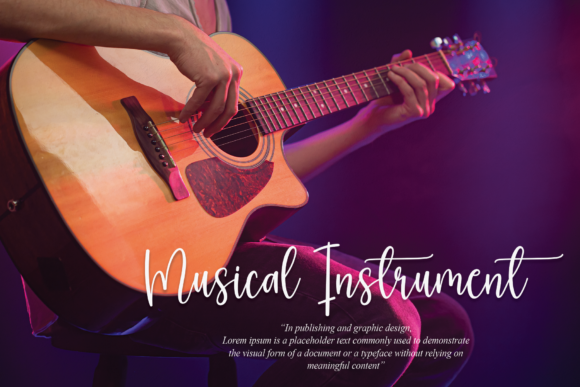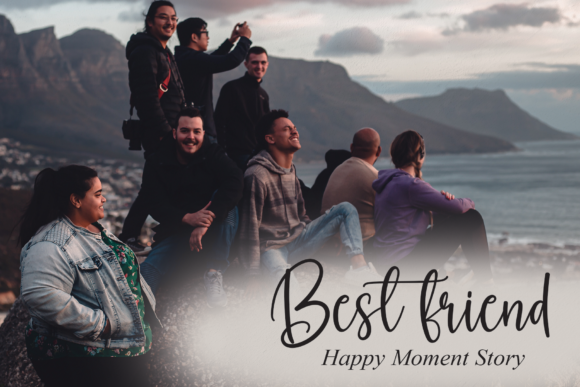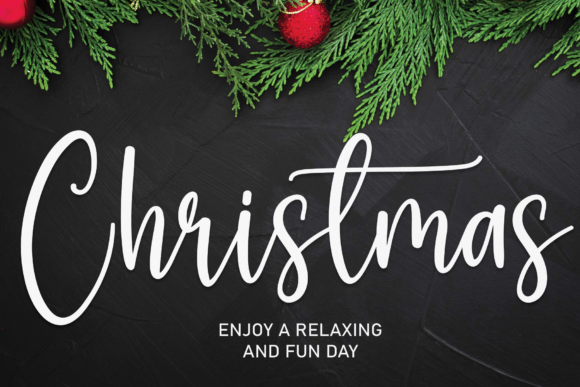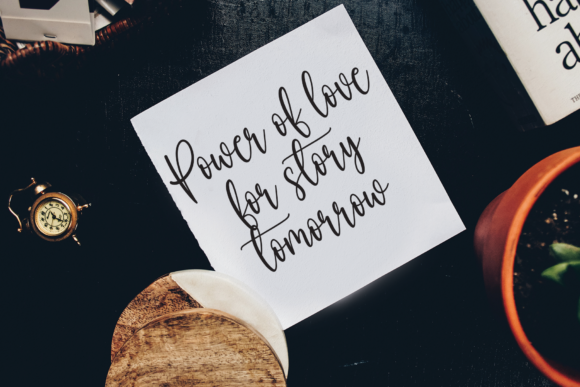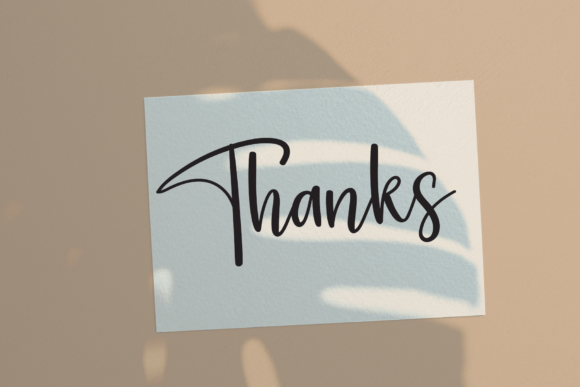
The Perfect Script for Your Designs: Unveiling the Arabesque Font
As designers, we’ve all been there – staring at a blank canvas, searching for the perfect font to elevate our project to the next level. It’s that moment of inspiration when everything comes together, and the design starts to flow. But, have you ever struggled to find a font that’s both unique and easy to read? That’s where the Arabesque Font comes in – a stylish and versatile script font designed to make your designs stand out.
With its elegant and cursive lines, the Arabesque Font is perfect for a wide range of projects, from wedding invitations and social media post logos to advertisements and product packaging. As a designer, you’ll appreciate the value of this font, which offers a unique touch to your designs without sacrificing readability. Whether you’re working on a personal or professional project, the Arabesque Font is sure to be a game-changer.
Arabesque Font Key Features
- Unique Characteristics: The Arabesque Font features intricate, hand-drawn designs and ornaments, adding a touch of elegance and sophistication to any text-based design.
- Font Style: Available in both Regular and Ornate styles, allowing designers to choose the perfect level of intricacy and detail for their project.
Designer Review: Arabesque Font
I recently had the chance to work with the Arabesque Font, and I must say it’s a real showstopper ✨. The intricate, hand-drawn design elements make it perfect for creating a sense of elegance and sophistication in any project.
- Unique and distinctive design: The Arabesque Font is unlike any other font I’ve seen, with its beautiful, swirling shapes and ornate details.
- Perfect for formal projects: Whether you’re working on a wedding invitation, a luxury product brochure, or a high-end website, this font is sure to make a statement.
- Great for creatives: The Arabesque Font is a dream come true for designers and artists who love to experiment with unique typography.
However, there are a few limitations to keep in mind ⚠️.
- Readability issues: Due to its ornate design, the Arabesque Font can be difficult to read, especially at smaller font sizes.
Overall, I’d give the Arabesque Font 4 out of 5 stars. While it’s a stunning font with endless creative possibilities, its limitations make it best suited for projects where readability and compatibility aren’t top priorities.
The Arabesque font is ideal for adding a touch of elegance and sophistication to your designs. Use it for:
- Formal event branding and marketing materials.
- High-end product packaging and labeling.
Remember to pair the Arabesque font with a clean and simple design to let its beauty shine.
The Arabesque Font is known for its unique features, including: